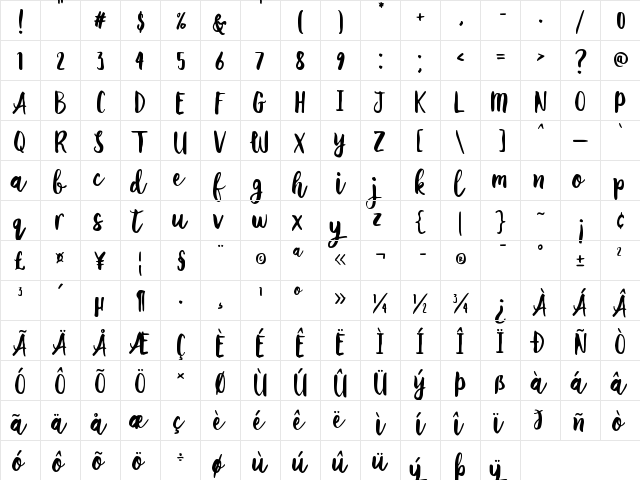
Let's Go Green Regular
Design Context for Let's Go Green Typeface
Let's Go Green is a composed and adaptable typeface that performs quietly and consistently across a wide range of design contexts.